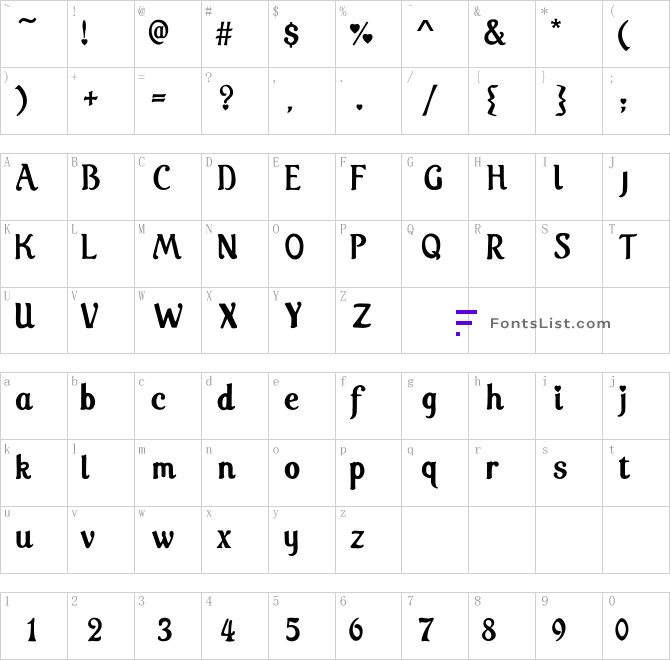
- Font Name:Care Bear Family
Care-Bear-Family.ttf is a very beautiful artistic font, Care-Bear-Family.ttf is widely used in the design and printing of various books and pictures,Care-Bear-Family.ttf has a strong visual impact,Care-Bear-Family.ttf is a commonly used font in newspapers, magazines and books, and is used in posters, e-commerce Poster design, store design, logo design, font design and other fields.Care-Bear-Family.